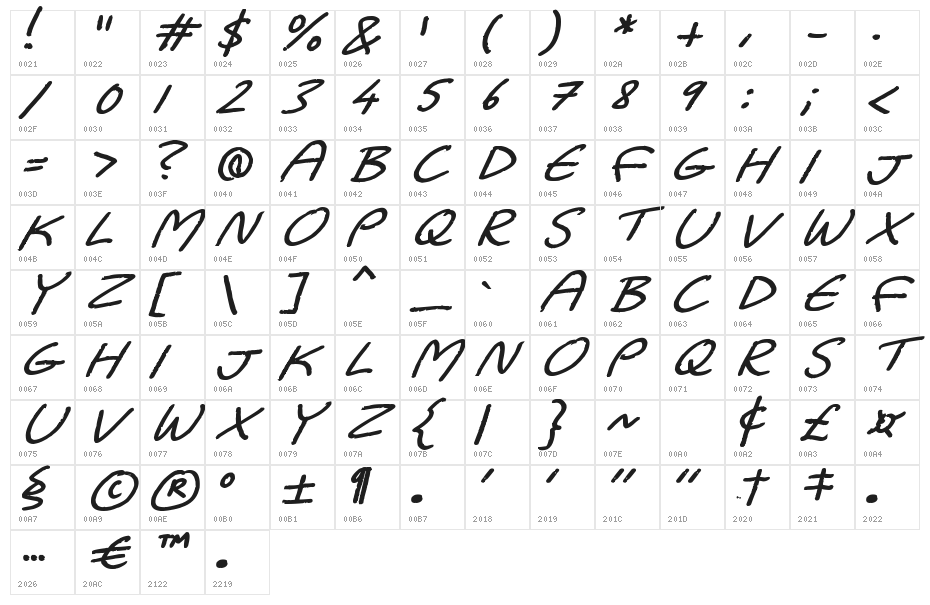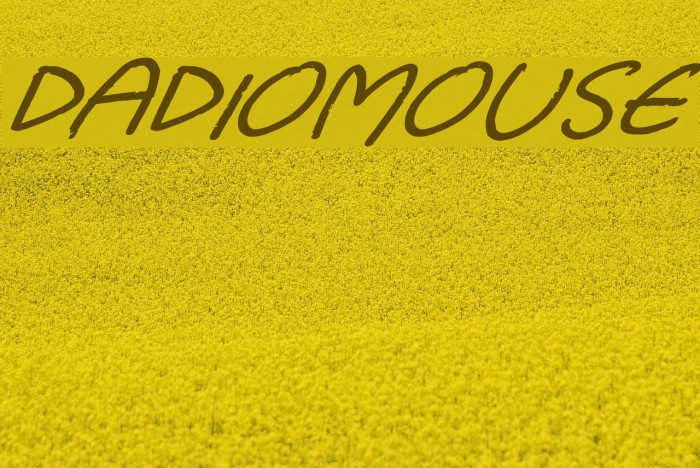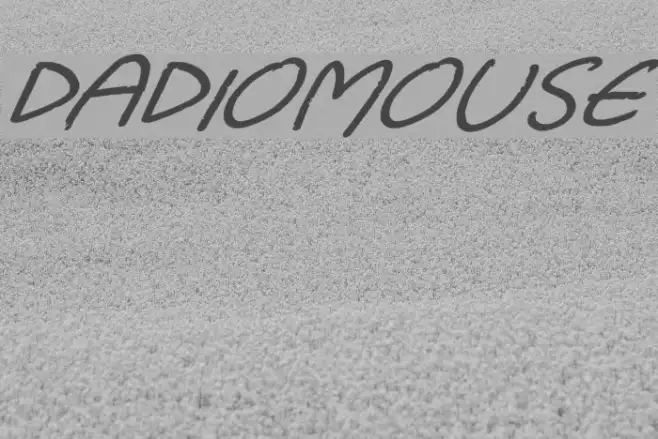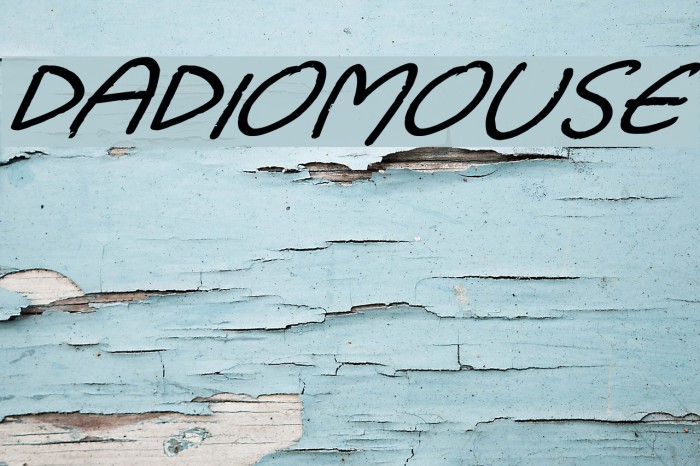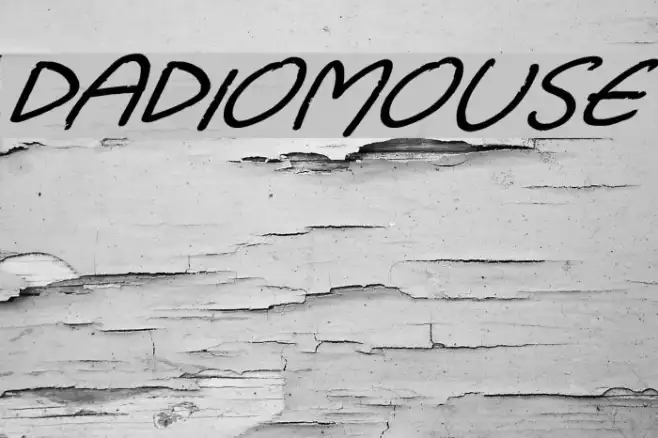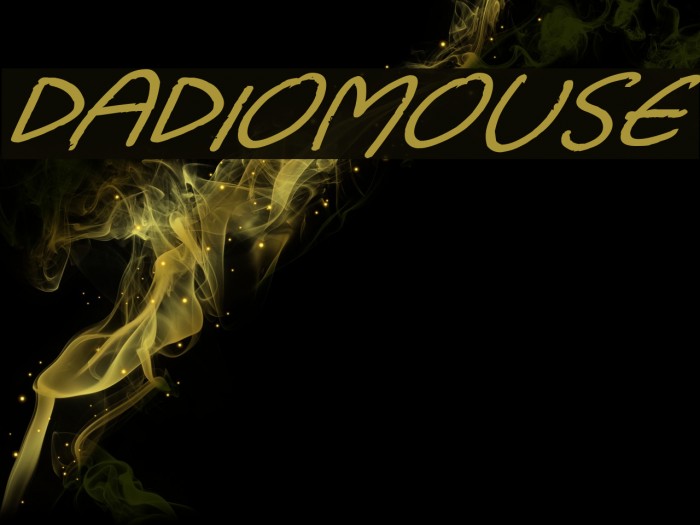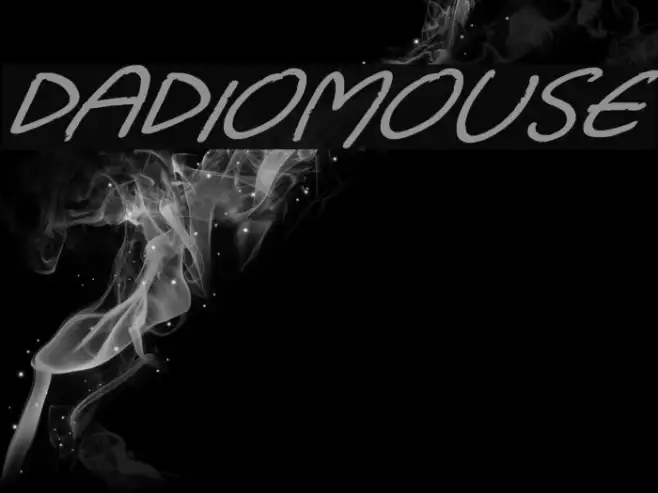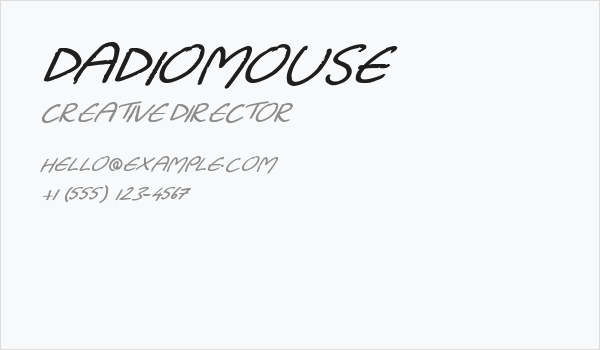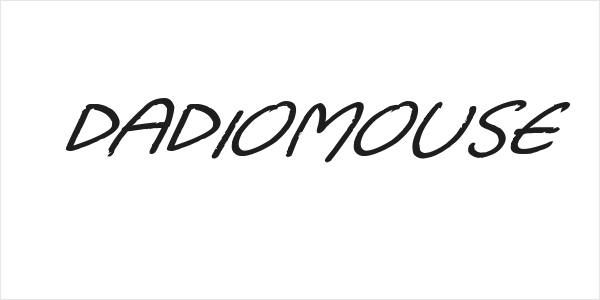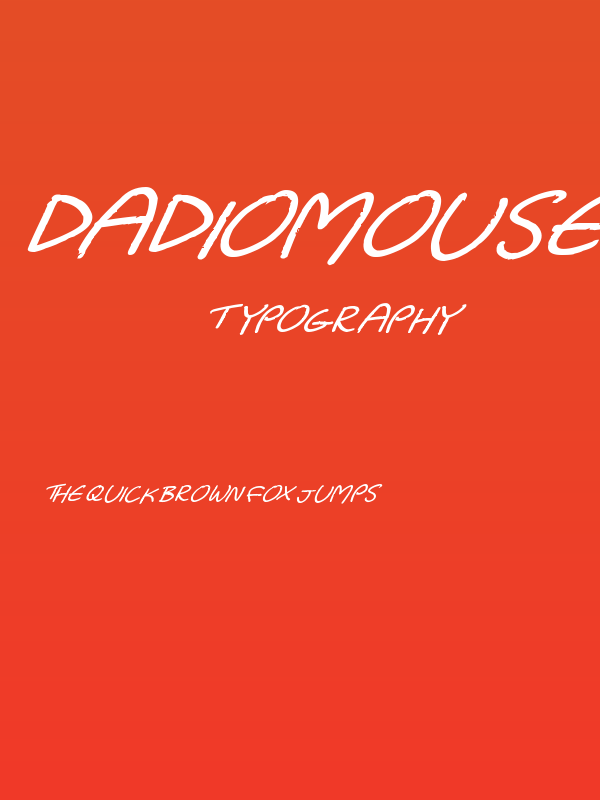
Dadiomouse Font
Dadiomouse Description
This font exhibits a dynamic and fluid handwritten style, characterized by its slanted and connected letterforms. The strokes are smooth and consistent, giving it a casual yet elegant appearance. The uppercase and lowercase letters maintain a cohesive flow, while the numerals and special characters integrate seamlessly with the overall design. The font's organic curves and slight variations in stroke width contribute to its authentic handwritten feel, making it suitable for projects that require a personal touch.
| Overall Style | Casual, Elegant |
| Proposed Projects | Ideal for greeting cards, personal branding, invitations, and creative projects that benefit from a handwritten aesthetic. |